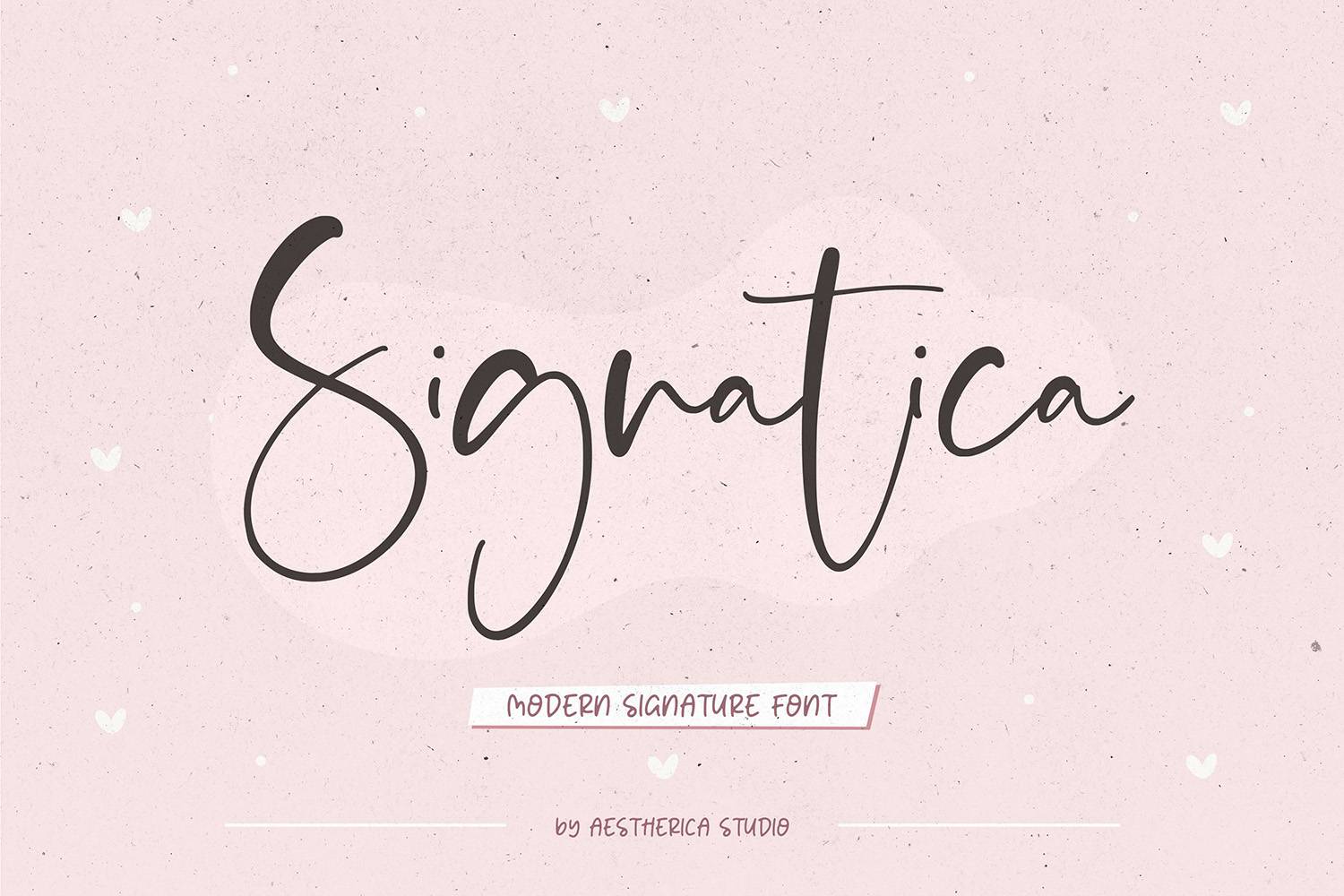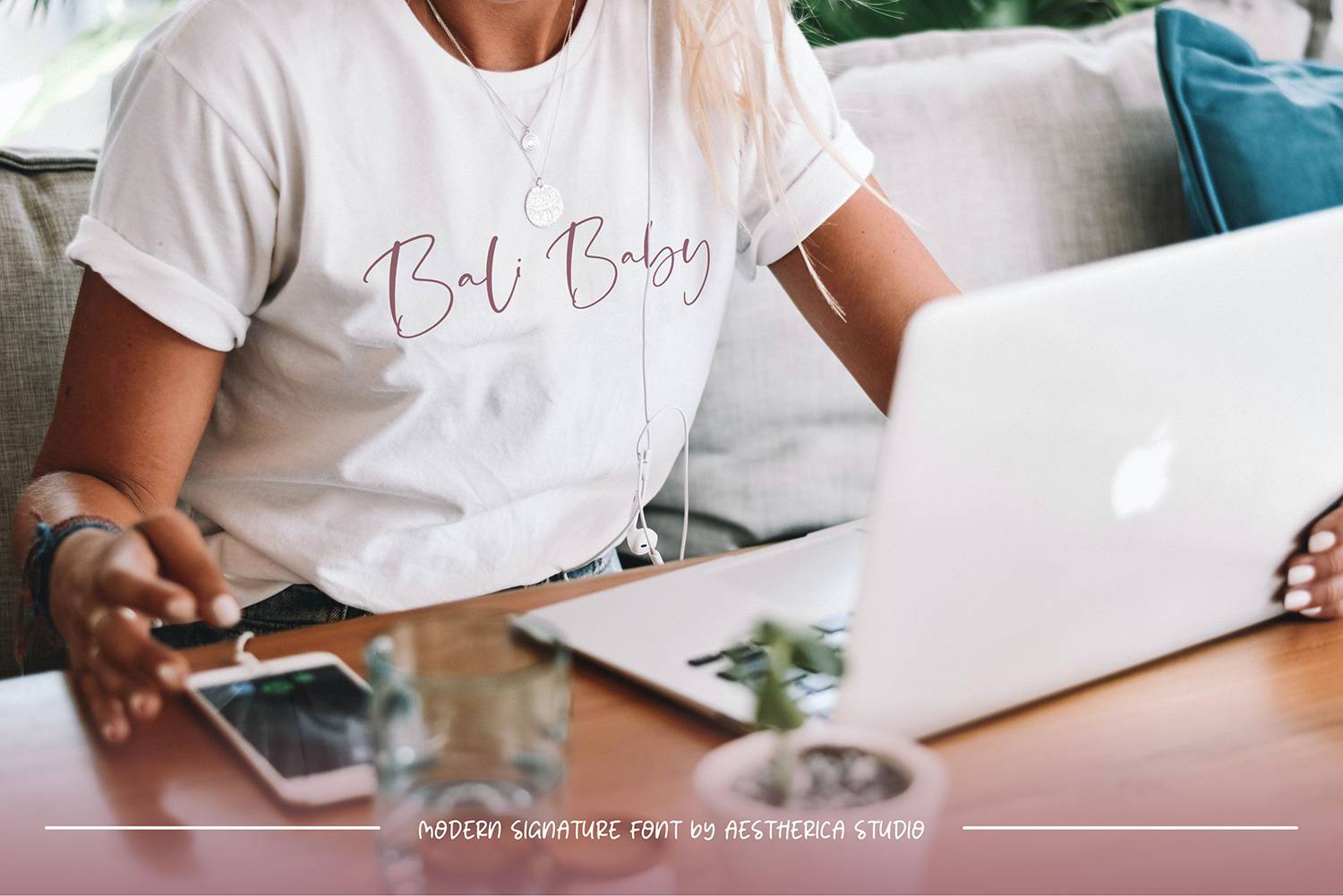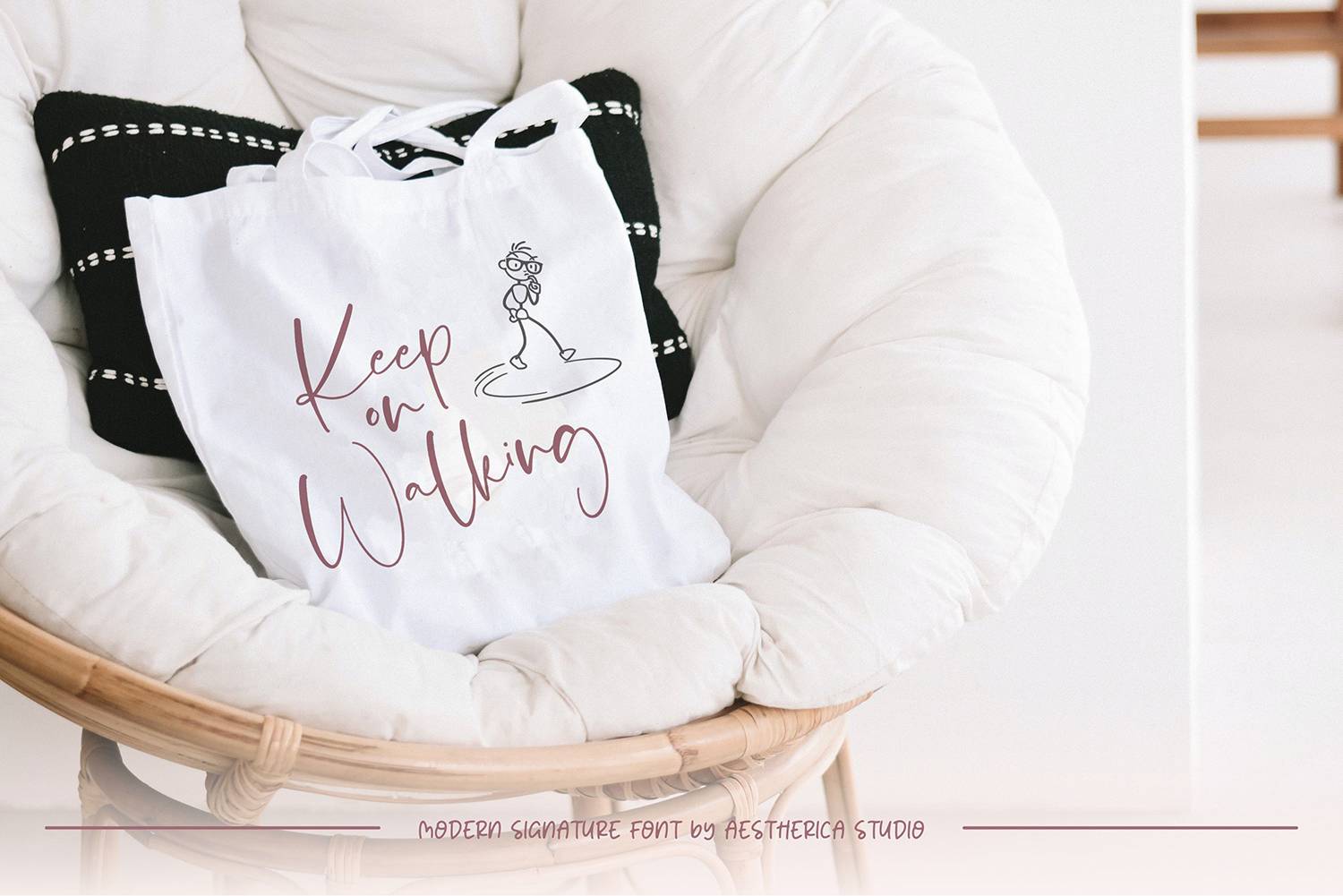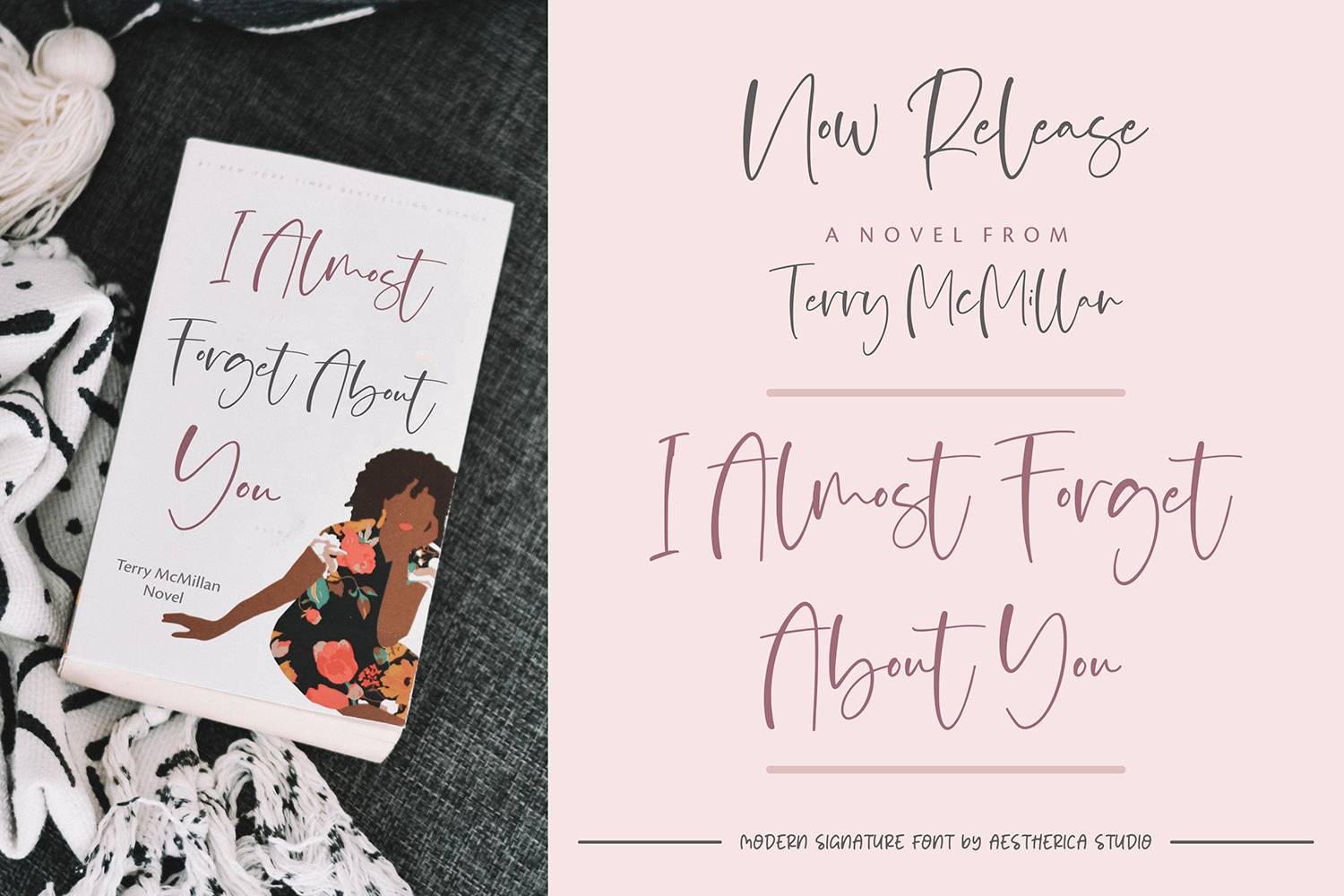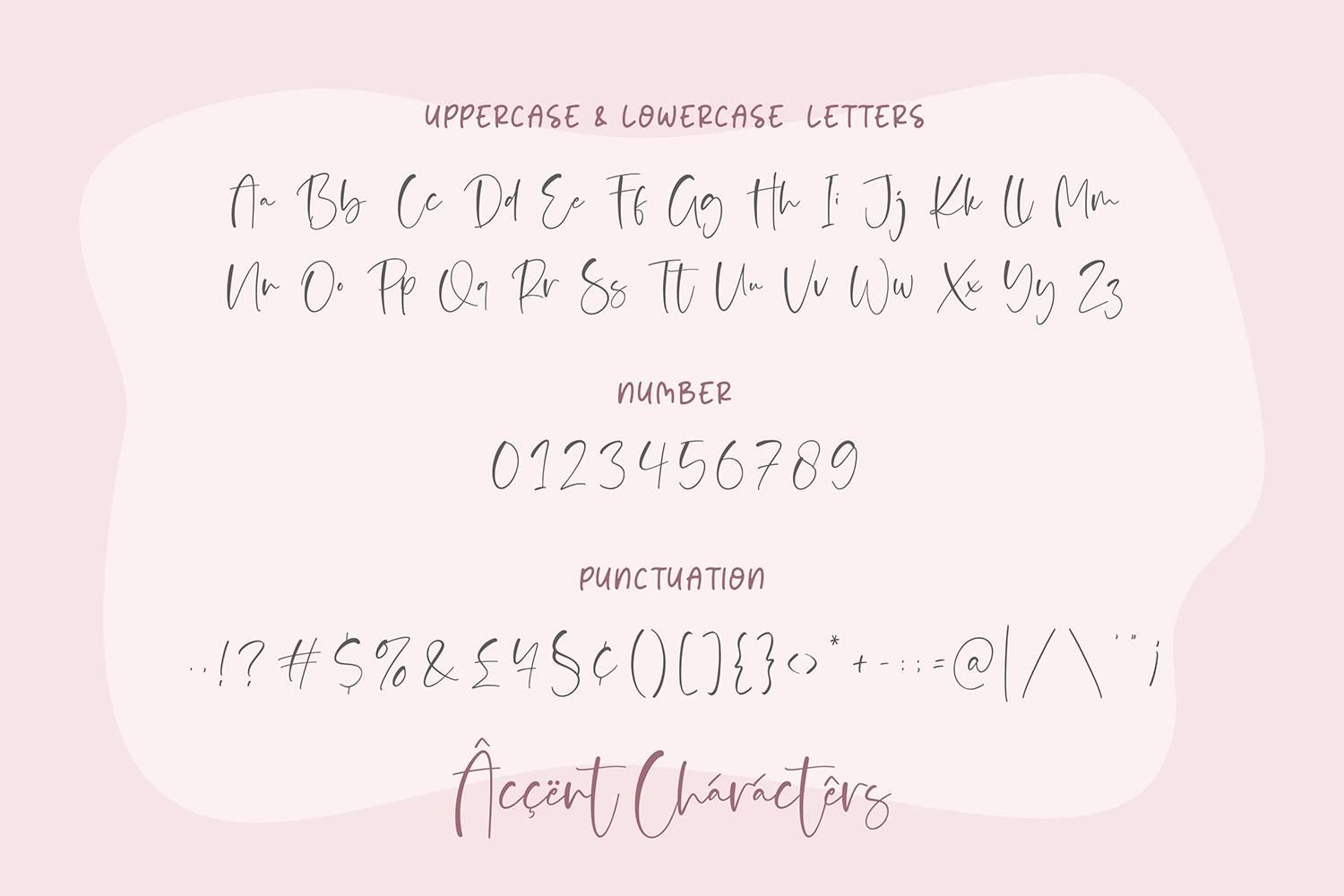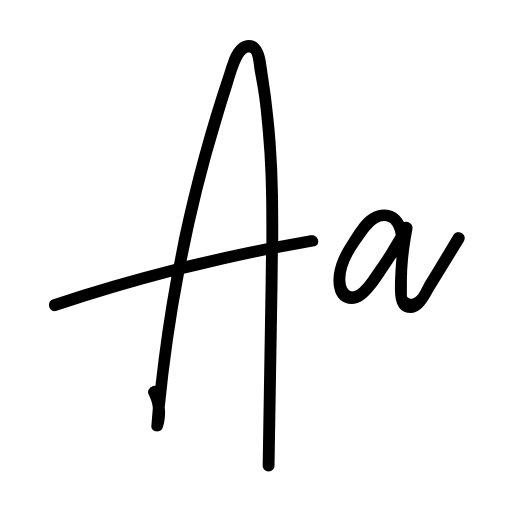
Signatica is a delicate, handwritten script font that exudes a casual and personal touch with its slender, flowing strokes and slightly irregular letterforms. Its light weight and airy spacing make it perfect for adding an elegant, friendly feel to invitations, branding, and editorial projects where a natural, stylish signature vibe is desired. This font works well for designs that seek to convey warmth, creativity, and a sense of individuality.
Signatica Font